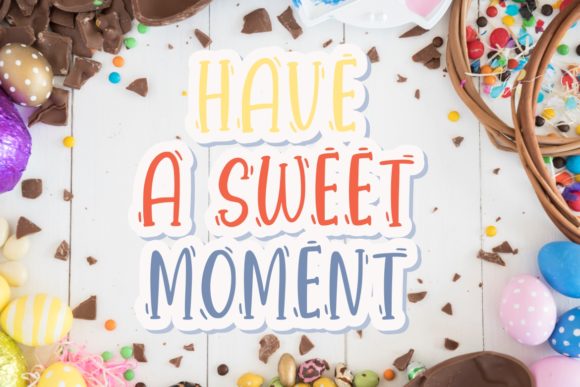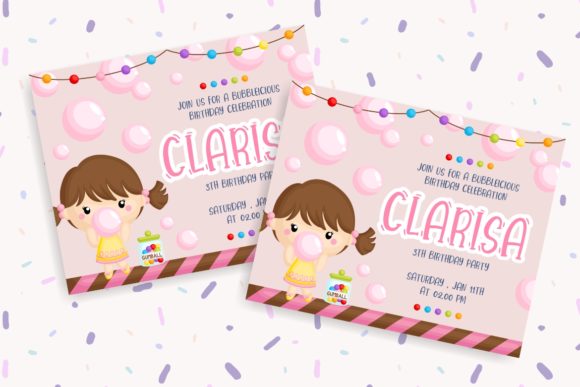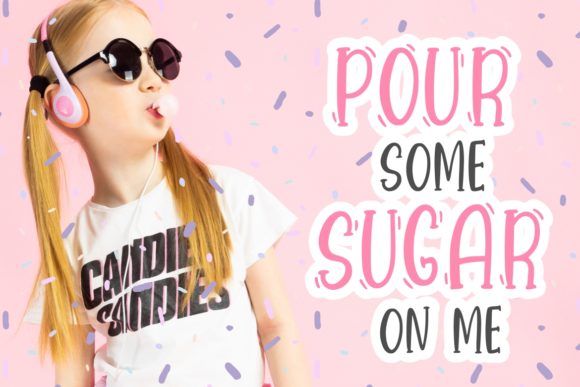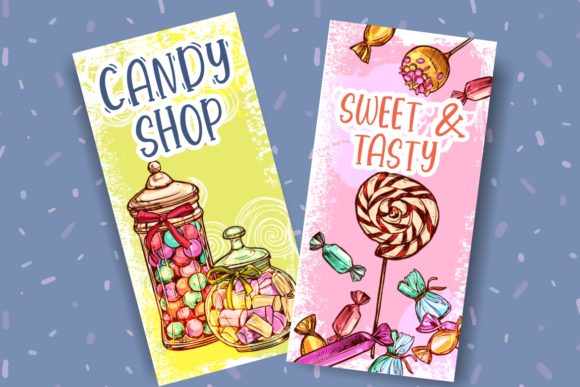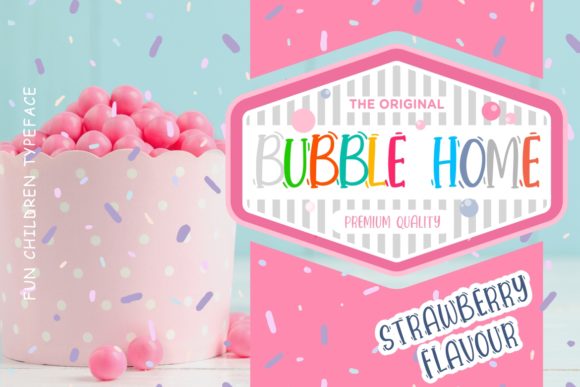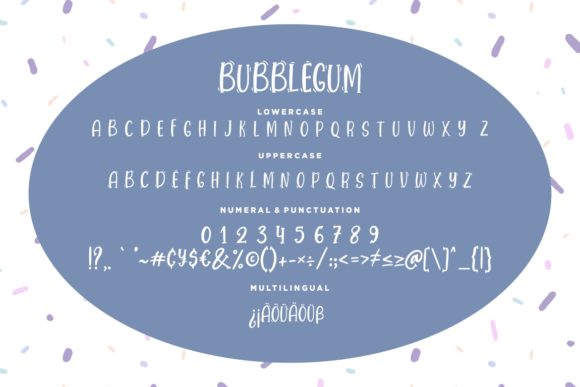
The Joyful World of Bubblegum Font: A Designer’s Delight
I’ll never forget the time I was working on a project for a children’s birthday party invitation. I had all the design elements ready, but something was missing – the perfect font. That’s when I stumbled upon Bubblegum, a joyful display font that instantly brought my design to life. In this article, I’ll share my experience with Bubblegum, its features, and how to make the most of it in your designs.
An Honest Review of Bubblegum Font
What I Love About Bubblegum ✨
• ✅ Childlike playfulness: Bubblegum’s playful and whimsical design makes it perfect for kids’ projects, school assignments, and any design that needs a touch of fun.
• ✅ High legibility: Despite its playful nature, Bubblegum remains highly legible, even in smaller sizes.
• ✅ Versatility: This font can be used for headings, titles, and even short paragraphs, making it a great addition to any design project.
• ⚠️ Limited use in formal designs: Bubblegum’s playful nature makes it less suitable for formal designs, such as business cards or corporate branding.
• ⚠️ Glyph limitations: While Bubblegum has a range of glyphs and stylistic alternates, it may not have the extensive character set of some other fonts.
The Backstory of Bubblegum Font
Bubblegum was designed with the intention of creating a font that’s both fun and functional. The designer aimed to capture the playful spirit of childhood, making it perfect for designs that require a touch of whimsy. While the designer’s inspiration is rooted in nostalgia, Bubblegum remains a modern and versatile font suitable for a wide range of design projects.
Q: What type of projects is Bubblegum best suited for?
A: Bubblegum is perfect for kids’ projects, school assignments, and any design that needs a touch of fun and playfulness.
Q: Does Bubblegum have a wide range of glyphs and stylistic alternates?
A: While Bubblegum has a range of glyphs and stylistic alternates, it may not have an extensive character set. However, it’s still a versatile font that can be used in various design projects.